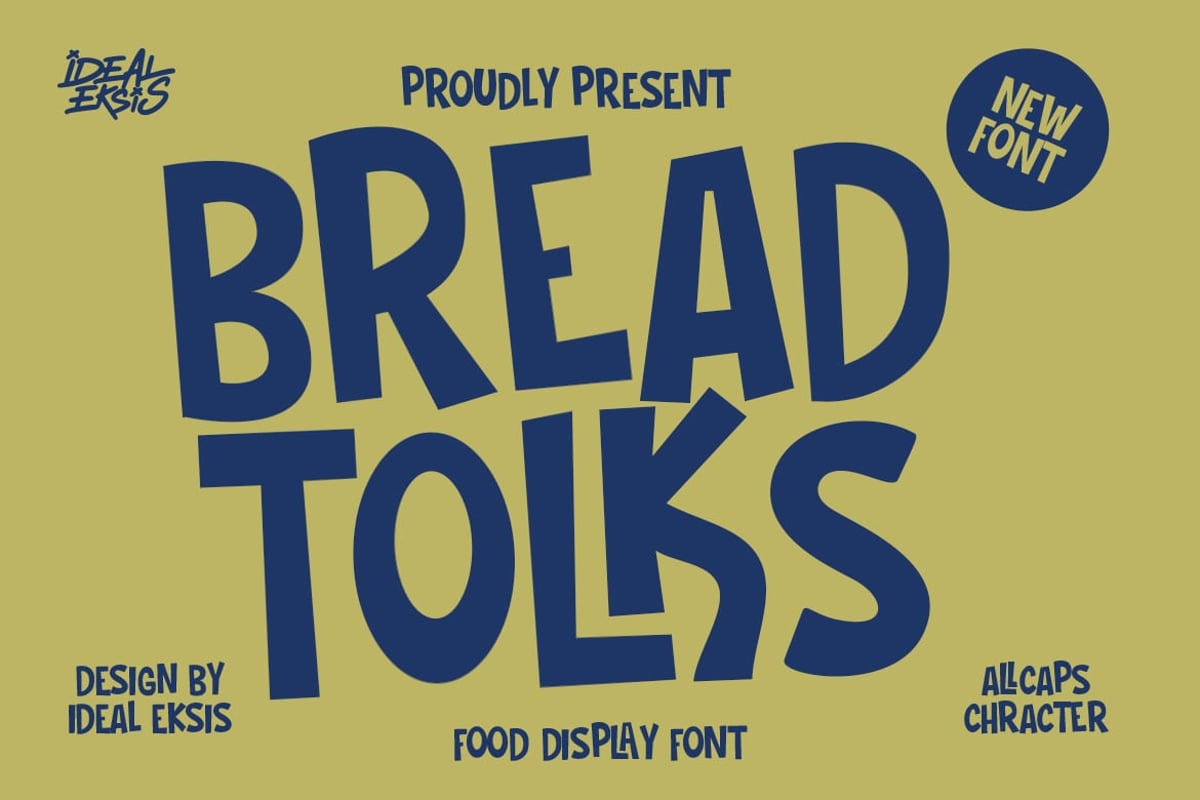
Bread Tolks - Food Font
Transform your food branding with chunky, hand-drawn letterforms that radiate playful energy and organic charm.
This bold display font showcases thick, irregular strokes that give every character a distinctive, organic shape. The chunky letterforms feel approachable and friendly, making it perfect for creating memorable food and beverage branding that stands out from the crowd.
- Uppercase (All Caps)
- Ligatures
- Numerals
- Punctuation
Perfect for:
- Bakery and café branding
- Food and beverage logos
- Restaurant menus and signage
- Coffee shop and donut shop designs
- Food packaging and labels
- Social media food promotions
- Kitchen-themed posters and prints
- Culinary blogs and recipe graphics